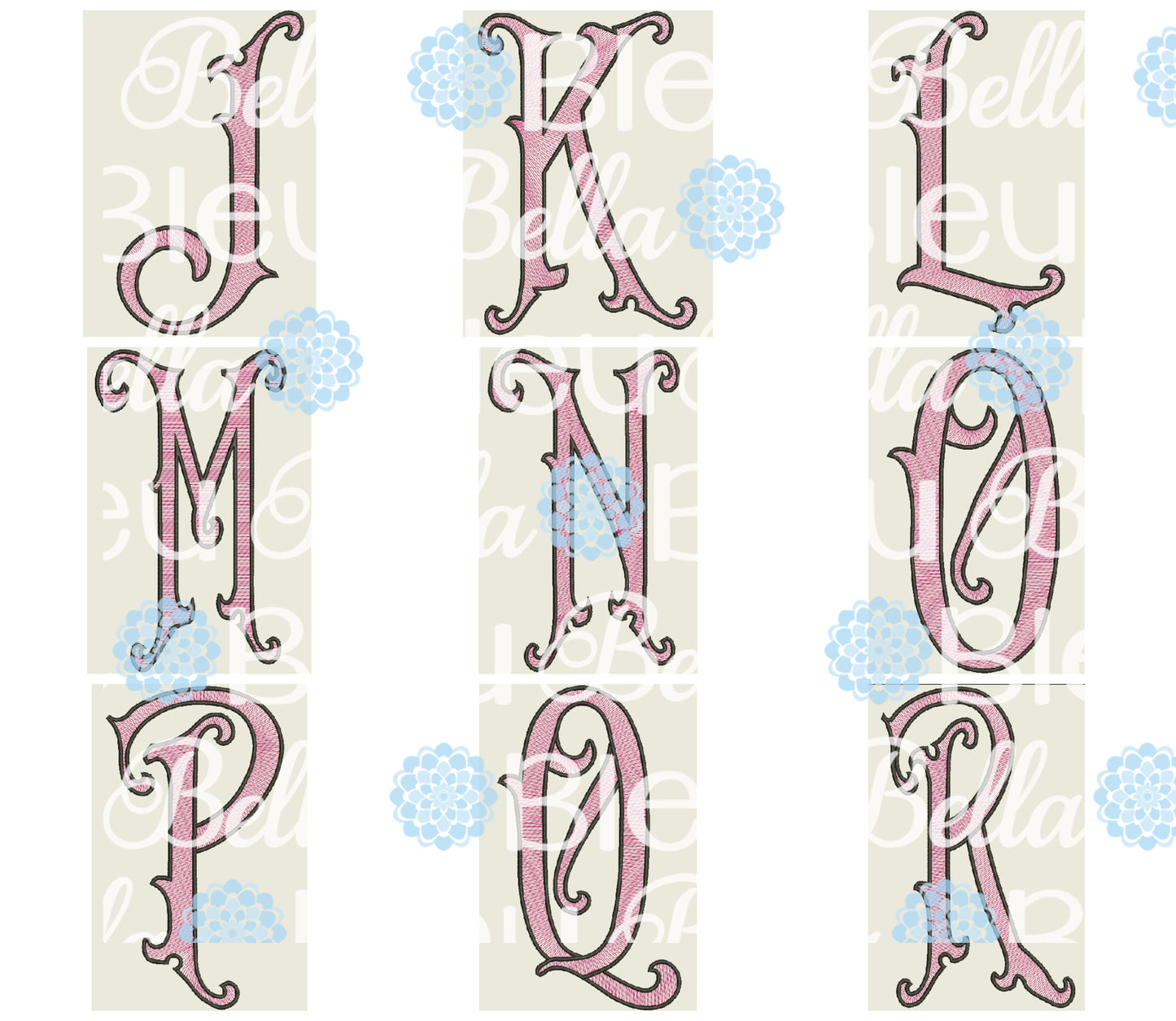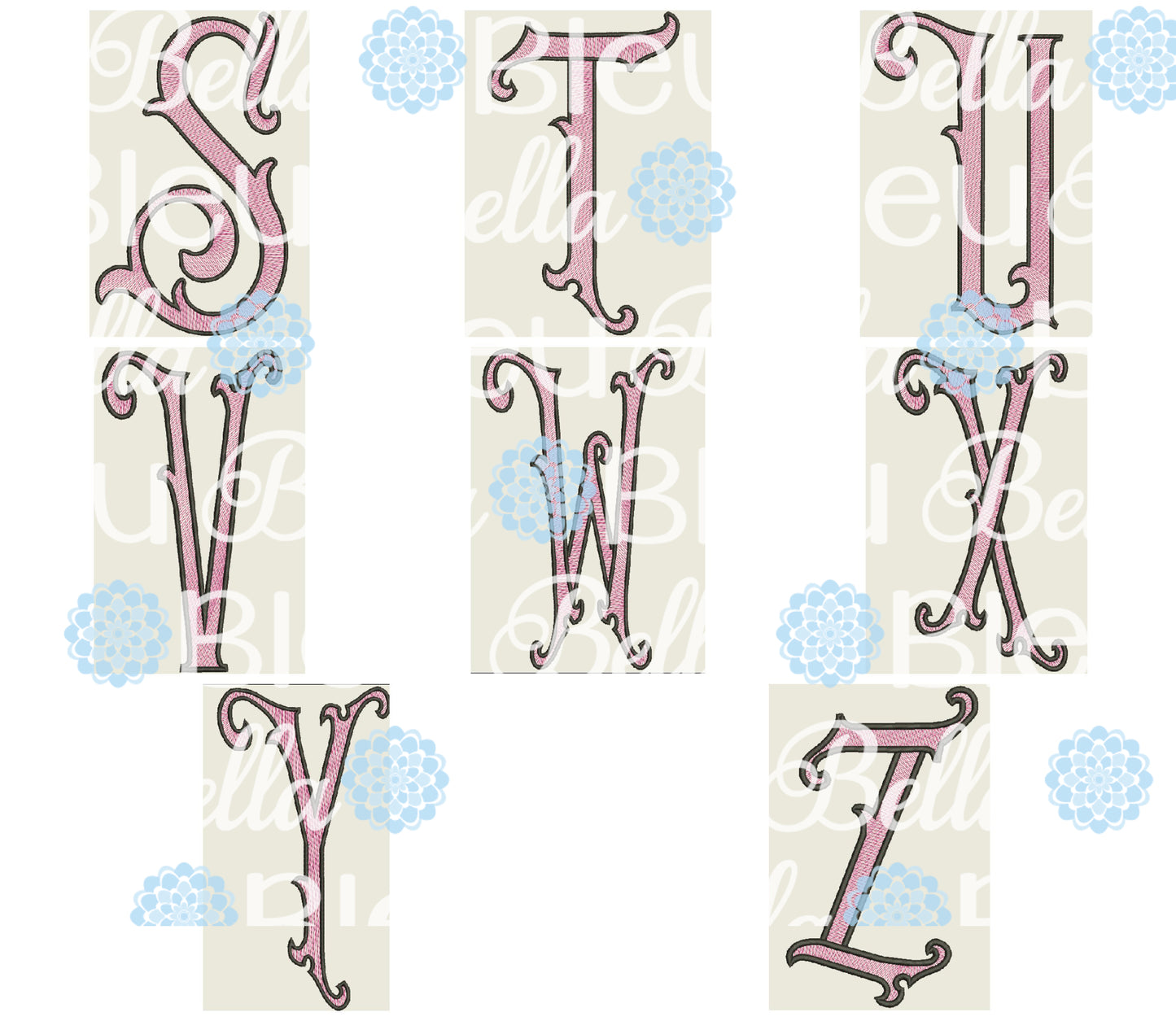
BBE - Victorian Sketchy Font Alphabet 6x10
Victorian Sketchy Font 6x10 only
Fun for large projects. Features a loose weave "sketchy" fill.
This designs perfect for the front of shirts or tote bags.